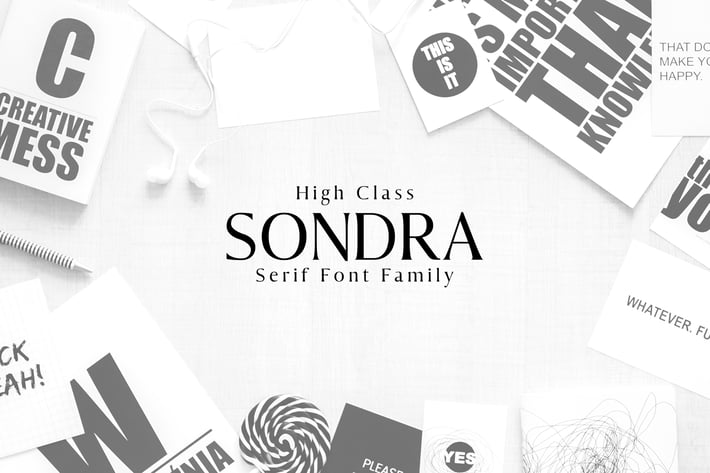
Sondra Serif Fonts Family Pack
Sondra Serif Typeface is minimalist and beautiful serif font family of 6 weights and it features unique and modern serif look and feel. Perfect for gorgeous logos & titles, layouts & content, or large & small scale, It looks gorgeous in all caps with a wide-set spacing if you want to try a classy look, or beautiful on its own in capital and lowercase letters for something completely timeless.
+ Font Weight: Regular, Light, Thin, Outline and Bold
Sondra Font Features:
+ Uppercase Multilingual Letters
+ Lowercase Multilingual Letters
+ Numbers & Punctuation
+ Non English Characters ( Latin Extended A )